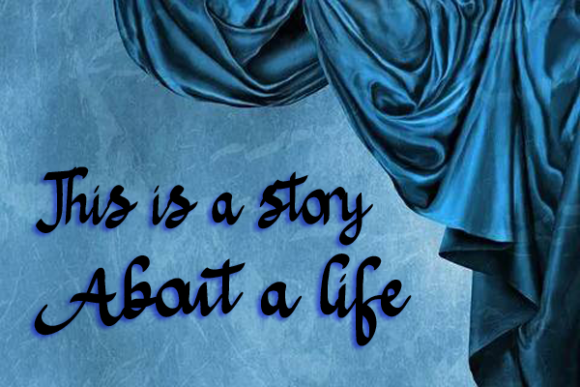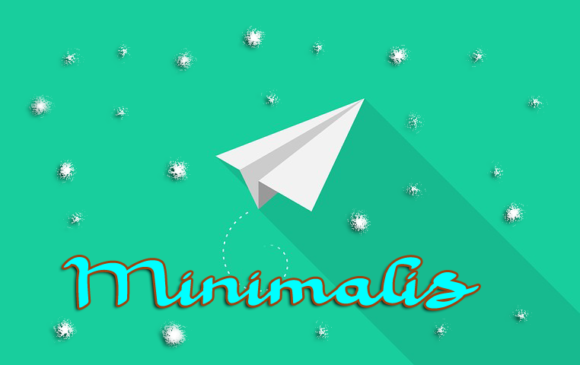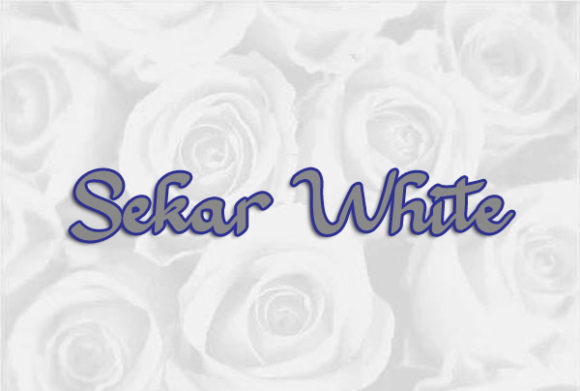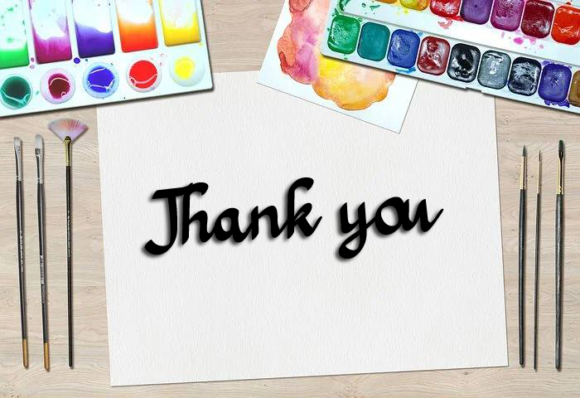
Introducing EXample Font: The Sweet and Friendly Handwritten Font for Your Design Needs
Are you a designer or crafter looking for a font that can add a personal touch to your projects? Look no further than EXample Font, a sweet and friendly handwritten font that is perfect for a wide range of designs. With its natural and unique style, EXample Font is sure to make your projects stand out from the crowd.
What Makes EXample Font So Special?
EXample Font is a beautifully crafted handwritten font that is designed to be both elegant and approachable. Its natural and unique style makes it incredibly fitting to a large pool of designs, from wedding invitations and party decorations to blog posts and social media graphics. Whether you’re a professional designer or a DIY crafter, EXample Font is the perfect choice for anyone looking to add a personal touch to their projects.
The Benefits of Using EXample Font
So why choose EXample Font over other fonts? Here are just a few benefits of using this amazing font:
- Unique and Eye-Catching: EXample Font has a distinctive and eye-catching style that is sure to grab attention. Its natural and handwritten look makes it perfect for designs that need a personal touch.
- Versatile: EXample Font is incredibly versatile and can be used for a wide range of designs, from formal events to casual social media posts.
- PUA Encoded: EXample Font is PUA encoded, which means you can access all of the glyphs and swashes with ease. This makes it easy to customize your designs and add your own personal touch.
- Easily Readable: Despite its handwritten style, EXample Font is incredibly easy to read, making it perfect for designs that need to convey a message or tell a story.
How to Use EXample Font in Your Designs
Using EXample Font in your designs is easy! Here are a few tips to get you started:
- Pair it with Other Fonts: EXample Font pairs perfectly with other fonts, so don’t be afraid to get creative and experiment with different combinations.
- Use it for Headings and Titles: EXample Font is perfect for headings and titles, where its unique and eye-catching style can really shine.
- Add Swashes and Glyphs: With its PUA encoding, EXample Font makes it easy to add swashes and glyphs to your designs. This is a great way to add a personal touch and make your designs more interesting.
Who Can Benefit from Using EXample Font?
EXample Font is perfect for a wide range of designers and crafters, including:
- Graphic Designers: EXample Font is a great addition to any graphic designer’s toolkit, and can be used for a wide range of projects, from logos and branding to social media graphics and blog posts.
- Stationery Designers: EXample Font is perfect for stationery designers, who can use it to create beautiful and unique wedding invitations, party decorations, and other paper crafts.
- Crafters: EXample Font is also great for crafters, who can use it to create personalized gifts, decorations, and other handmade items.
In conclusion, EXample Font is a sweet and friendly handwritten font that is perfect for designers and crafters looking to add a personal touch to their projects. With its natural and unique style, PUA encoding, and ease of use, EXample Font is sure to become a favorite in your design toolkit. So why wait? Download EXample Font today and start creating beautiful and unique designs that stand out from the crowd!